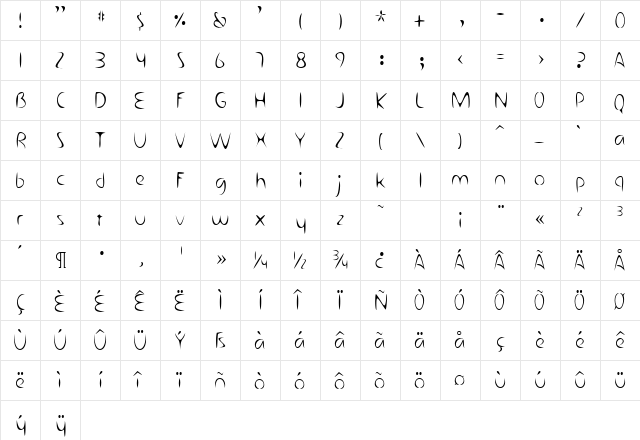
Minimalist Regular Font Preview
Minimalist Regular
Design Context for Minimalist Typeface
Minimalist is a composed and adaptable typeface that performs quietly and consistently across a wide range of design contexts.